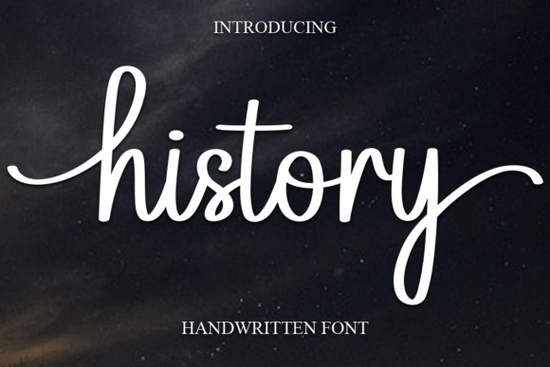
If you need a handwritten font that feels both elegant and casual, History Font is worth considering. This sweet, cursive typeface adds a joyful, romantic touch to any project without looking stiff or formal. Designers, crafters, print-on‑demand sellers, and small business owners often look for fonts that can work across branding, weddings, greeting cards, and social media – and this one fits that brief nicely.
What makes History Font different from other script fonts?
Many script fonts lean either too formal (like traditional calligraphy) or too messy (like casual handwriting). History Font sits in a sweet spot: the letterforms are clearly drawn and easy to read, yet they keep a natural, flowing feel. The strokes are soft and slightly bouncy, which gives it a cheerful personality. It’s not overly ornamental, so it works well in both small body text and larger headlines. If you compare it to the Kimily Font, which has a more whimsical, looping style, History Font feels a bit more grounded and versatile for everyday branding needs.
How can you use it for branding and logos?
For branding, you need a font that communicates warmth and approachability while still looking professional. History Font does that well. It works for boutique shops, beauty brands, bakeries, and lifestyle blogs. The cursive style suggests a personal, handcrafted touch, which is perfect for logos on packaging, website headers, or social media profiles. Pair it with a clean sans‑serif for contrast. You can also mix it with a bolder script like the Preppy Cute Font for a more playful, youthful vibe – just make sure the two styles don’t compete.
Is it suitable for wedding invitations and greeting cards?
Absolutely. The romantic, gentle character of History Font makes it a natural choice for save‑the‑dates, invitation suites, and thank‑you cards. It reads clearly even when set at smaller sizes, which is important for details like date, time, and venue. For a more elaborate wedding aesthetic, you might layer it with the Enchanting Font for headings and use History Font for the body copy. Both share a soft, elegant tone, but Enchanting Font has more flourishes for accent pieces.
Can print-on-demand sellers benefit from this font?
Print‑on‑demand is all about creating designs that stand out while keeping production costs low. Because History Font is a clean script, it prints nicely on mugs, T‑shirts, tote bags, and phone cases without losing legibility. You can use it for quote designs, inspirational phrases, or personalized gifts. When creating a birthday‑themed product, consider combining it with the Happy Birthday Duo Font – the duo style includes both a script and a playful display that works perfectly for party decorations and cards.
How does it fit into fashion, lookbooks, and marketing promotions?
Fashion and lookbook projects often need a font that feels current but not trendy. History Font’s casual elegance works well for seasonal collections, product descriptions, and promotional banners. It’s also a good choice for social media quotes or Instagram stories where you want the text to feel personal. For a luxury feel without being overly formal, use it sparingly as an accent font. You can download the complete font family from the product page to see all available weights and alternate characters.
- Test readability: Try the font at different sizes – especially small sizes for body copy – to ensure it remains clear.
- Pair with a contrast font: Use a simple sans‑serif or a geometric slab serif for body text so the script doesn’t overwhelm.
- Consider the tone: This font works best for feminine, romantic, or friendly brands. If your brand is edgy or minimal, look for a different style.
- Try color variations: Because the strokes are consistent, History Font looks great in pastels, metallics, or dark tones with high contrast.
Tip: Use History Font for your next greeting card or product label – its sweet, cursive style is one of the easiest ways to add a handmade feel without extra design effort.